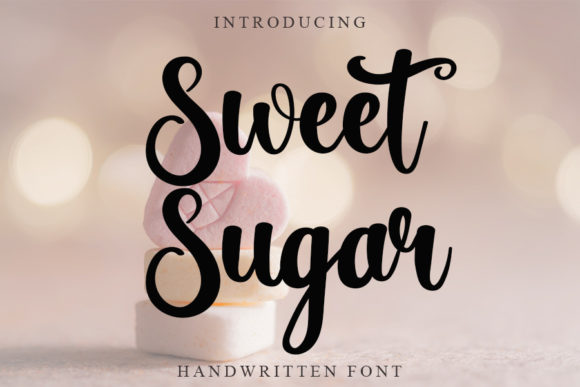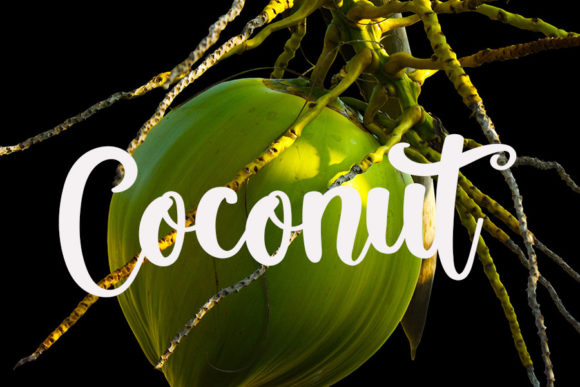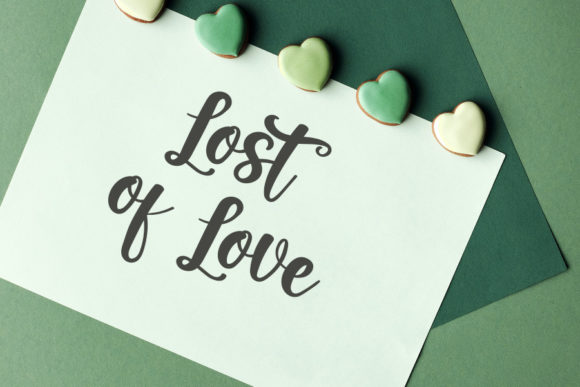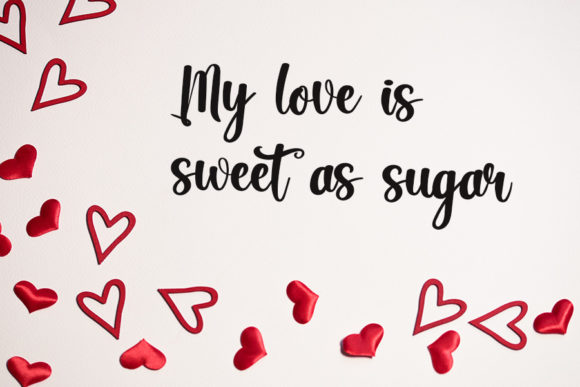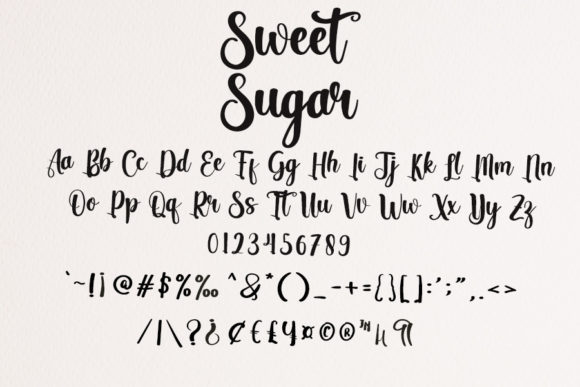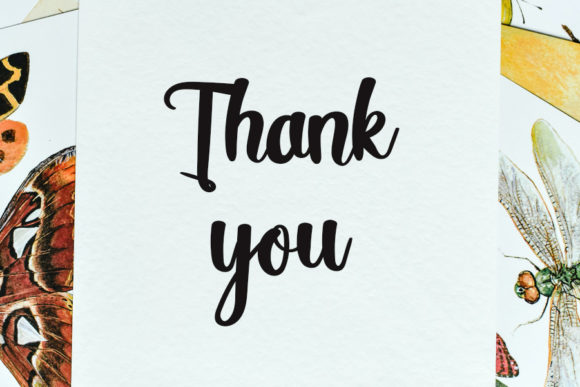
Sweet Sugar Font
About Sweet Sugar Font
Sweet Sugar font is a charming script font that radiates elegance and charm with its delicate and flowing strokes. Crafted with meticulous attention to detail, every curve and line of this font exudes a sense of romance and sweetness, making it the perfect choice for a wide range of design projects.
At the heart of Sweet Sugar font lies its versatility and adaptability. Whether used for wedding invitations, greeting cards, or branding materials, this font adds a touch of sophistication and personality to any project it graces. Its romantic and personalized touch makes it ideal for conveying heartfelt messages and sentiments, creating a memorable and unforgettable experience for both designers and viewers alike.
The flowing strokes and delicate curves of Sweet Sugar font create a sense of whimsy and intimacy, making it perfect for projects that require a romantic and personalized touch. Its handwritten style adds a unique and personal flair to every design, making it feel truly special and one-of-a-kind.
In the realm of wedding invitations and cards, Sweet Sugar font shines brightly, setting the perfect tone for celebrations of love and romance. Its elegant and romantic appearance adds a touch of sophistication to every invitation, creating a memorable and unforgettable experience for guests.
But Sweet Sugar font is not limited to formal occasions. Its versatility and adaptability make it suitable for a variety of design projects, from branding materials to social media graphics. Its whimsical charm and personalized touch make it a beloved choice for designers seeking to add a bit of sweetness to their designs.
One of the standout features of Sweet Sugar font is its ability to evoke emotion and create a sense of warmth and nostalgia. Its flowing script style brings a sense of elegance and sophistication to every project, making it truly special and unforgettable.
In summary, Sweet Sugar font is more than just a typeface; it’s a symbol of romance and sweetness. With its delicate and flowing strokes, it adds a touch of elegance and charm to any design project, making it truly special and unforgettable.